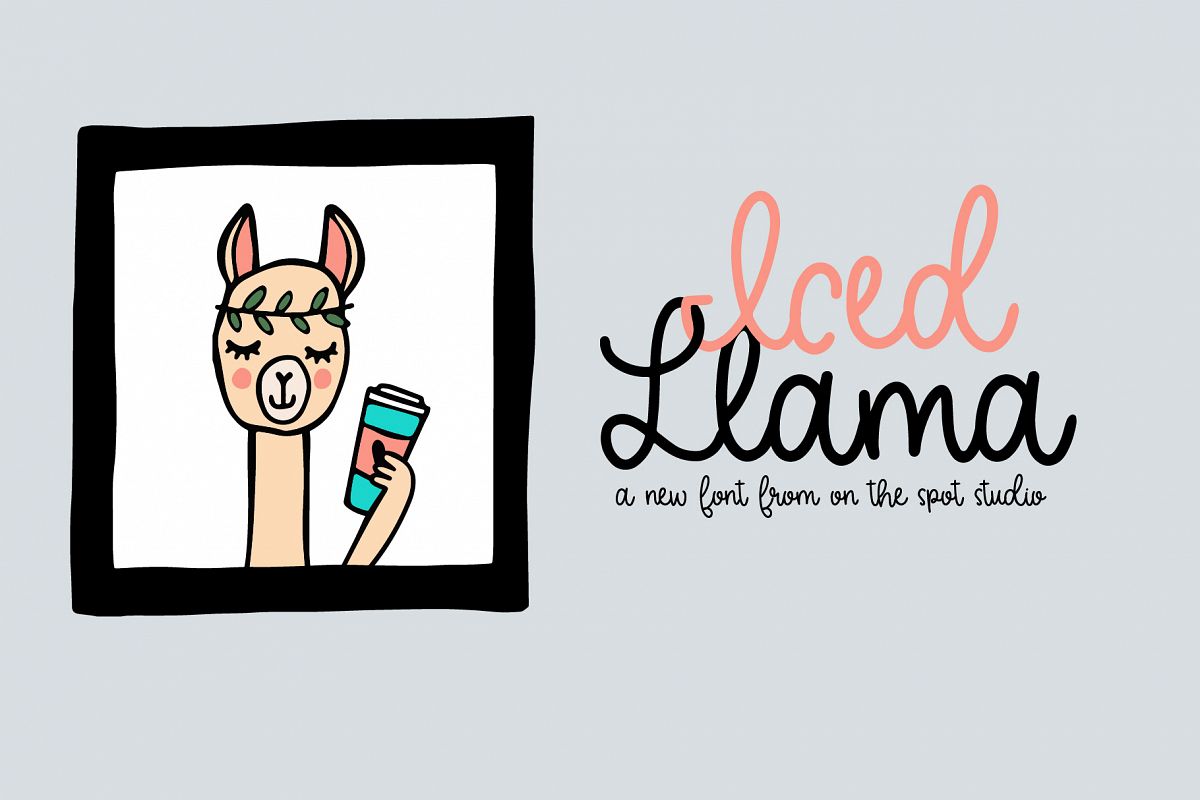
Iced Llama
Meet Iced Llama. A basic script for a basic gal.
Simple Script perfect for your home based business, personal use, crafting, etc.
Includes uppers, lowers, numbers, punctuation, & accents.